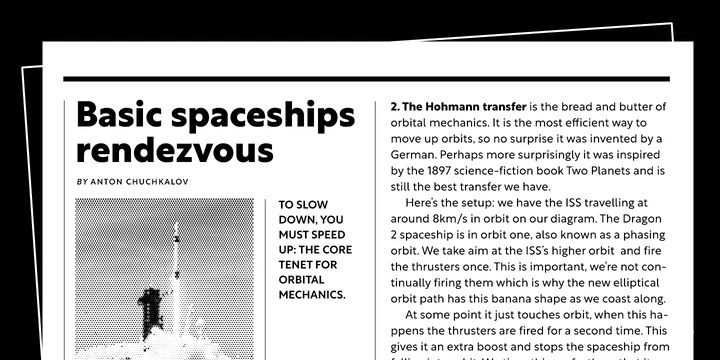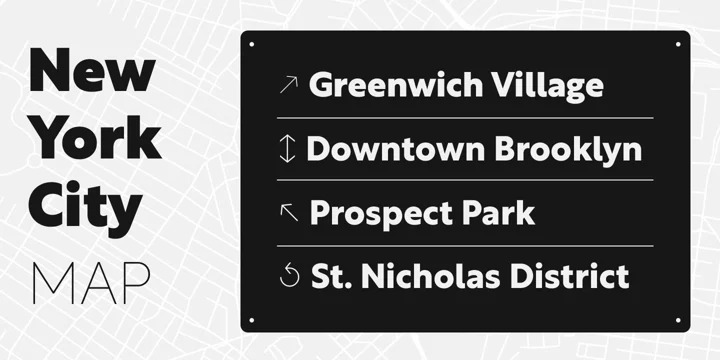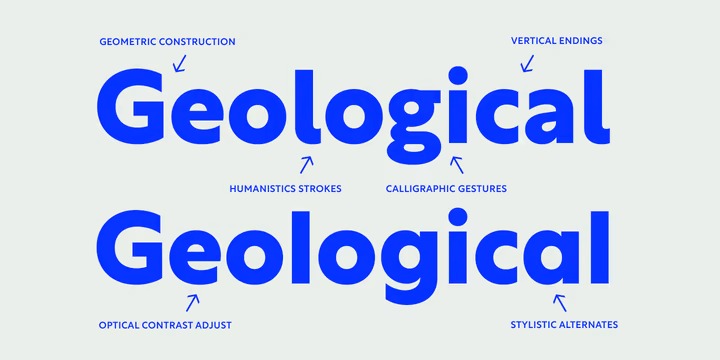
Rustica Font
Rustica Sans Serif Font
It’s an elegant serif typeface with plenty of features. It’s designed and shared by TipoType. Type design looks back at its past to return with renovated strength to its march to the future. Rustica is based on a humanist architecture with the addition of the determination and precision of the geometry of the classic sans of the early 20th century.
Thus, a typographic conception typical of 21st century communications: returning to the human values of closeness and proximity, adding the certainty of knowledge and science.